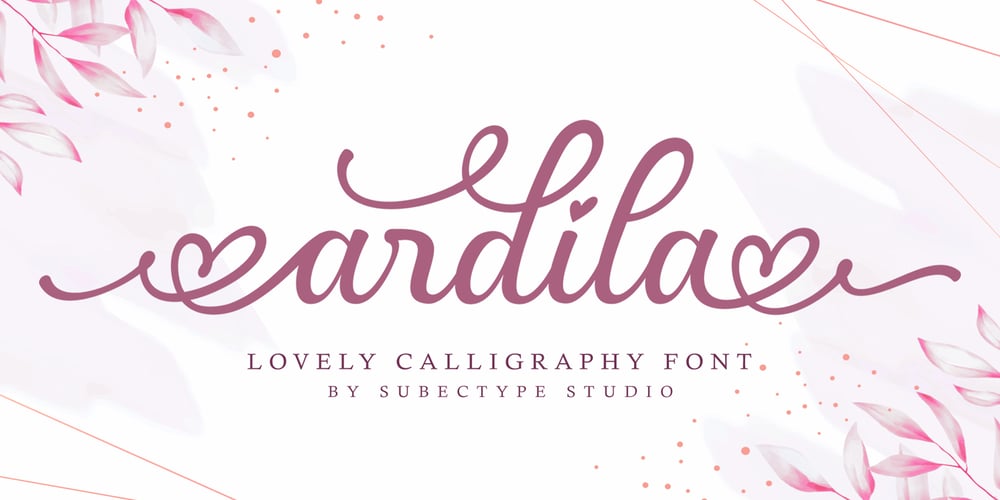
Ardila Font Family was designed by Rangga Subekti and published by Subectype. Ardila contains 1 styles and family package options. Ardila is a lovely calligraphic font with a lot of love swashes. Equipped with lovely alternative letters for beginning and ending and also up to 5 stylistic alternates which makes this letter very beautiful and attractive.Ardila is suitable for logos, headlines, clothing, branding, quotes, invitations, stationery, wedding design, album covers, business cards, clothing, magazines, posters, and more!Thank you for your purchase! and hope you have fun with Ardila.Happy creating!